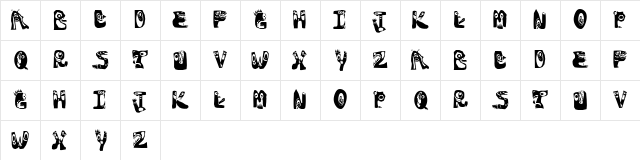
MonstoCaps Regular Free Font
MonstoCaps Regular
Version: 1.0 of this cartoony monster font
Design Context for MonstoCaps
MonstoCaps is a composed and adaptable typeface that performs quietly and consistently across a wide range of design contexts.